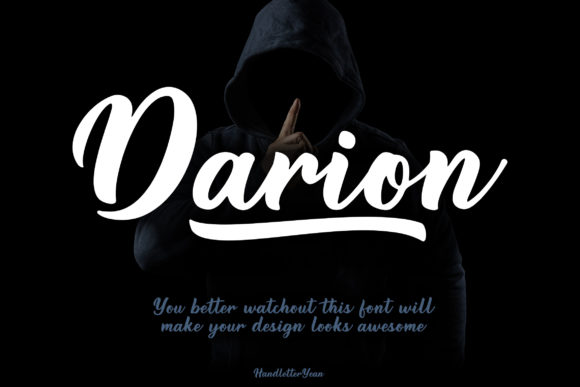
Step into the world of Darion Font, a captivating script font that oozes personality and charm. Its modern bold strokes, reminiscent of natural handwriting, lend an air of elegance and sophistication to any design. Experience the sheer joy of creating visuals that resonate with your audience, leaving a lasting impression that speaks volumes. Darion Font is not just a mere font; it's an artistic expression that breathes life into your projects.
While other fonts blend into the background, Darion Font stands out, demanding attention with its undeniable presence. Unleash your creativity and make a statement with poster designs that command attention from afar. Darion Font's ability to effortlessly blend into busy backgrounds makes it the perfect choice for creating visuals that pop. It's a symphony of boldness and grace, striking the perfect balance between readability and visual impact.
Darion Font's versatility extends beyond posters. Its enchanting curves and dynamic lines bring a touch of allure to branding, social media graphics, and product packaging. With Darion Font as your creative companion, your designs will exude an aura of professionalism and elegance, leaving a lasting impression on your clients and customers.
Embrace the beauty of Darion Font and embark on a creative journey like no other. Let your designs dance with personality, capturing hearts and minds with every stroke. Experience the transformative power of a font that transcends the ordinary, turning your artistic vision into a tangible reality. Darion Font is not just a font; it's an open invitation to create something truly extraordinary.